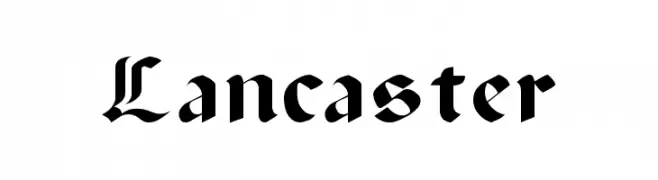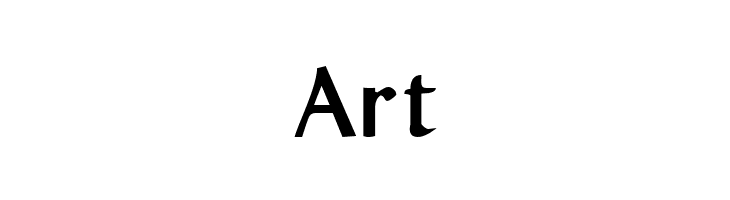
A modern, slightly condensed font with dynamic slanted uppercase and rounded lowercase letters.
A bold, Gothic-inspired font with sharp, angular edges and a medieval flair.
A bold, decorative font with playful, rounded characters and a whimsical style.
A classic blackletter font with ornate and intricate letterforms.
A bold, calligraphic font with sharp, angular strokes and a traditional flair.
A bold, decorative font with intricate details and vintage flair.
A bold, condensed, and modern geometric font with strong vertical emphasis.
A clean, elegant font with a modern yet timeless appeal.
A distinctive serif font with sharp angles and a blend of traditional and modern styles.
A dotted font ideal for educational and playful design projects.